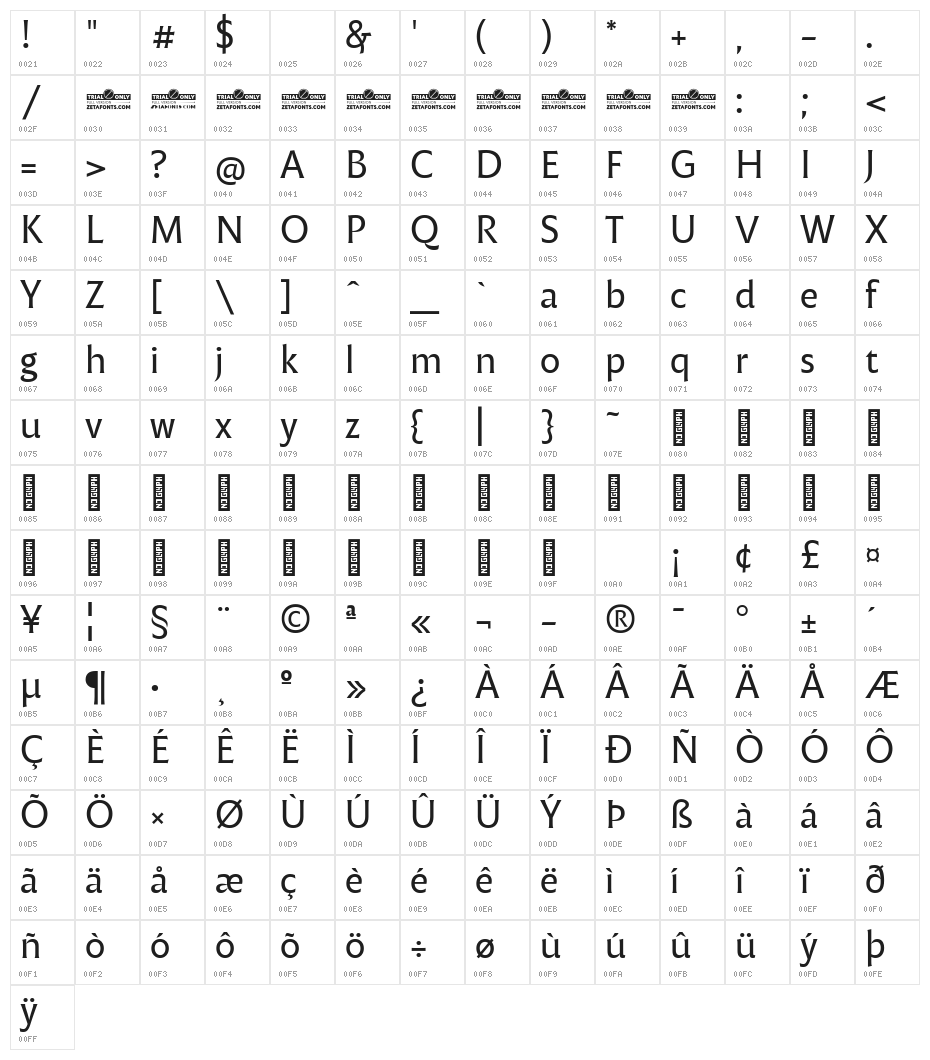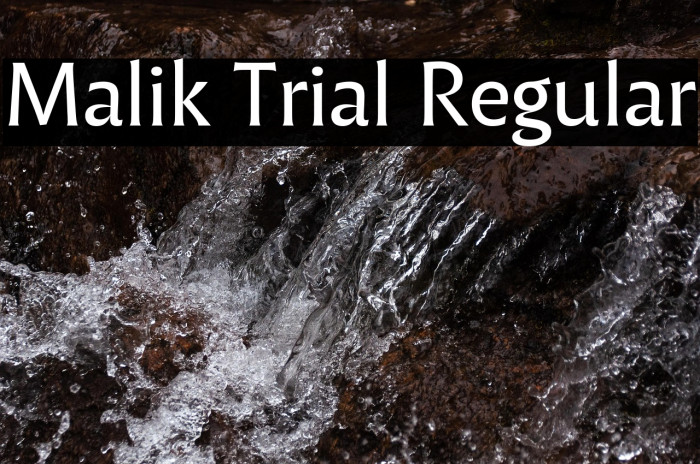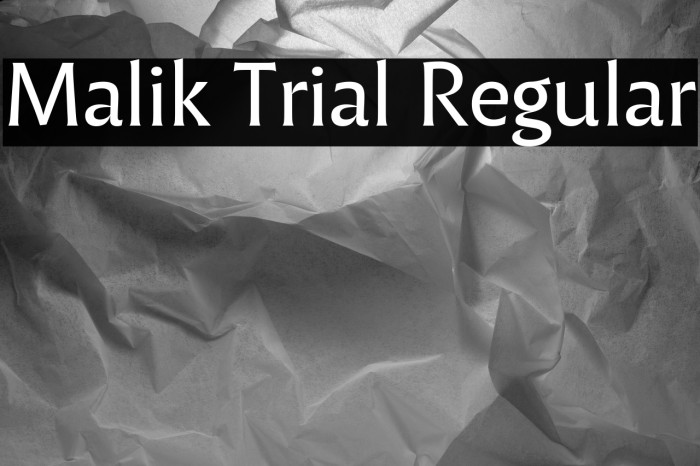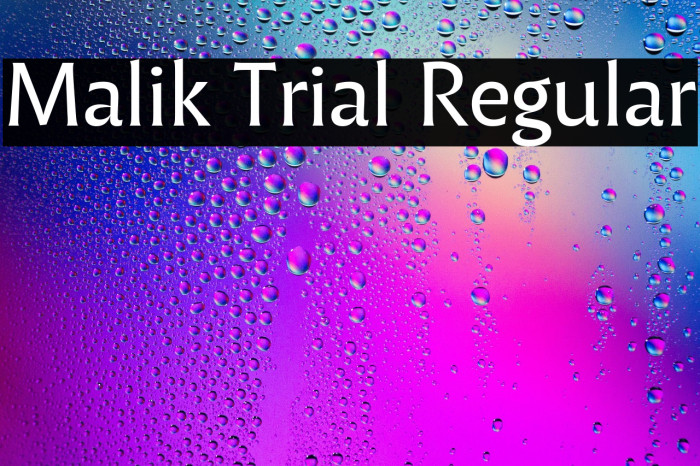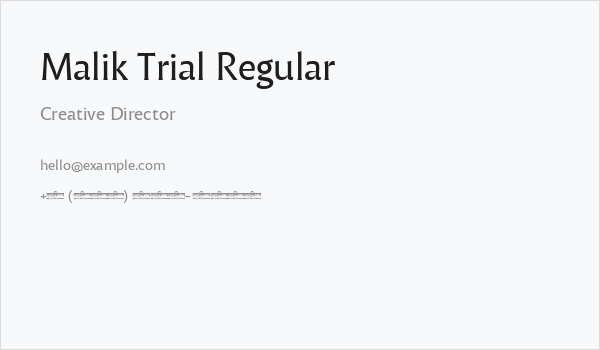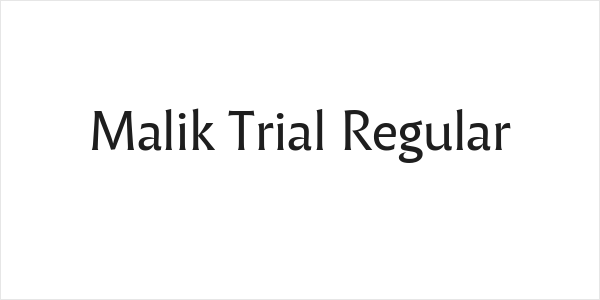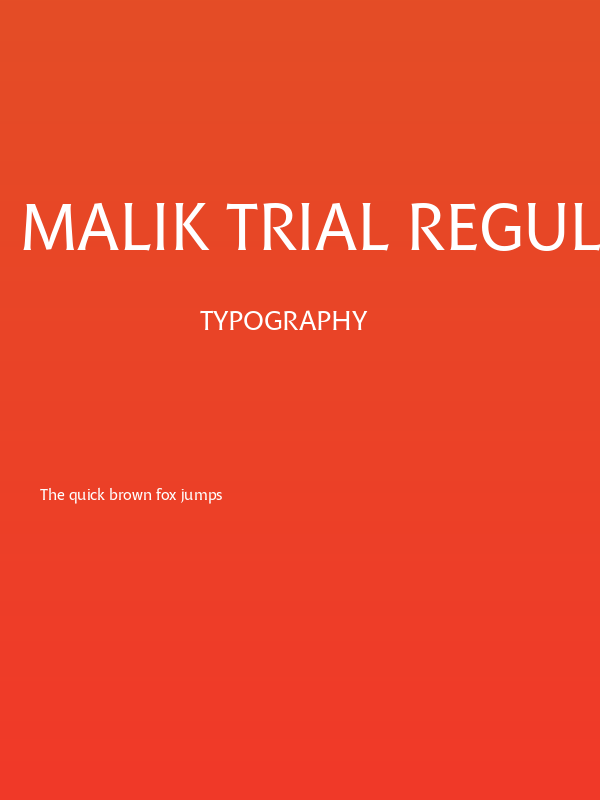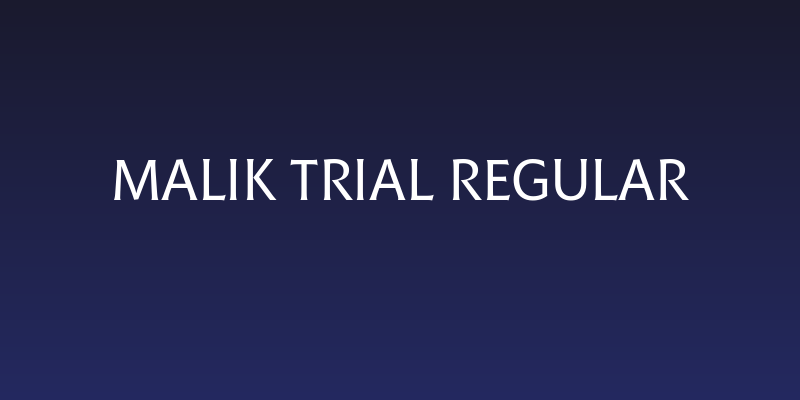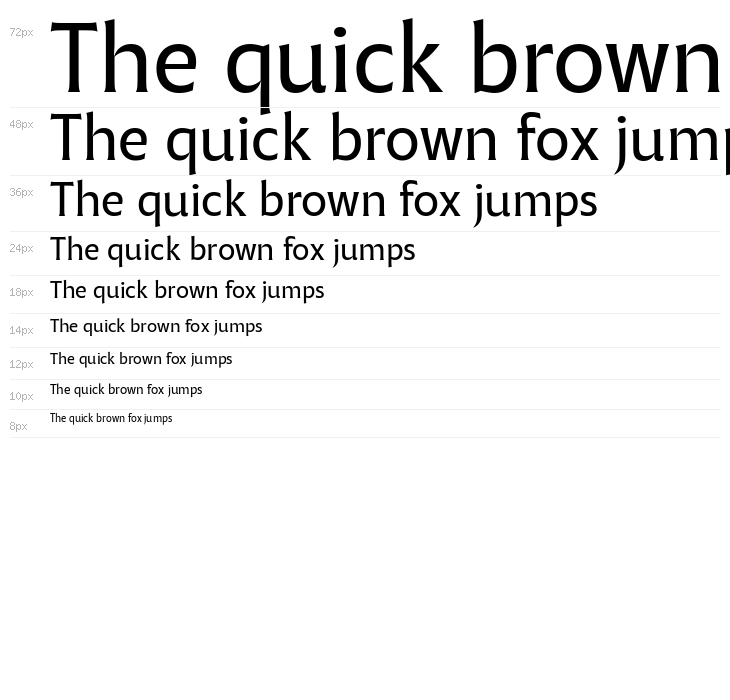
Malik Trial Regular Font
Malik Trial Regular Description
This font features a modern serif style with clean, sharp lines and a balanced structure. The uppercase letters are bold and commanding, while the lowercase letters maintain a graceful and elegant appearance. The numerals are clear and easy to read, making them suitable for various applications. The special characters are well-designed, complementing the overall aesthetic of the font. This typeface is versatile, offering a contemporary look that can be used in both digital and print media. Its readability and stylish design make it ideal for professional and creative projects.